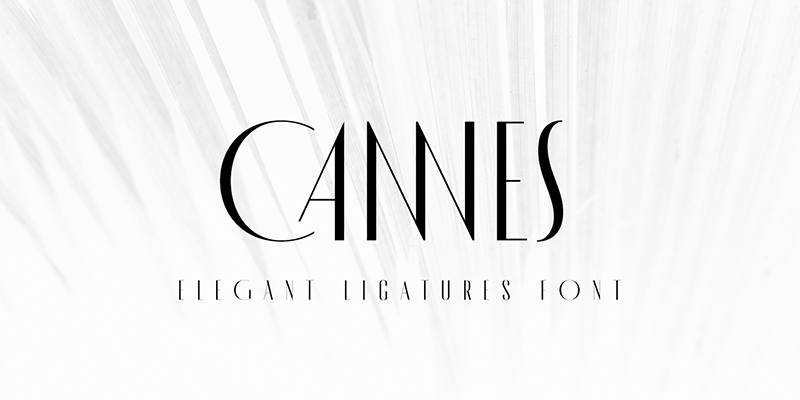
Font name: | MADE Cannes |
Author: | MadeType |
Note by MadeType | |
The Cannes was inspired by the art deco style. The Cannes allows you to combine between uppercase & lowercase letters, which will allow you to create a unique style! The Cannes is ideal for posters, fashion, magazines, logos, branding, photography, invitations, advertisements, quotes, etc. Font is FREE for PERSONAL USE. Contact me mail for commercial use and questions: Madetypeinfo@gmail.com ----- FOR PERSONAL AND COMMERCIAL WORK https://www.fontspring.com/fonts/madetype https://creativemarket.com/MadeType https://thehungryjpeg.com/madetype https://www.youworkforthem.com/designer/1002/madetype/ ----- https://www.behance.net/madetype Email for questions: Madetypeinfo@gmail.com |